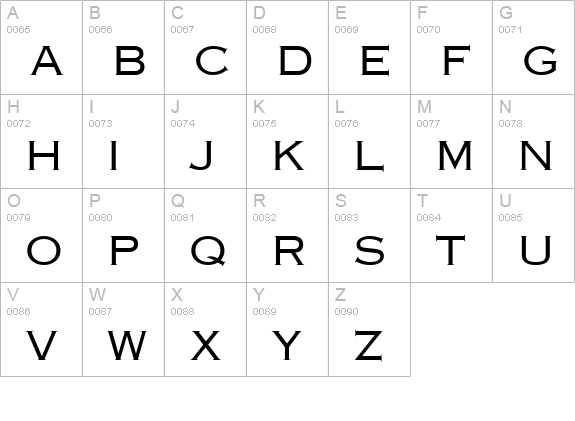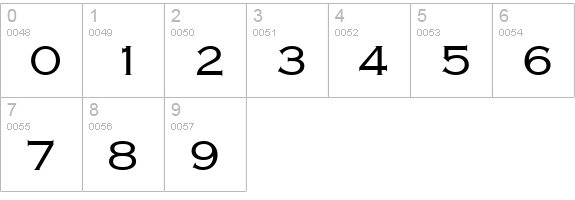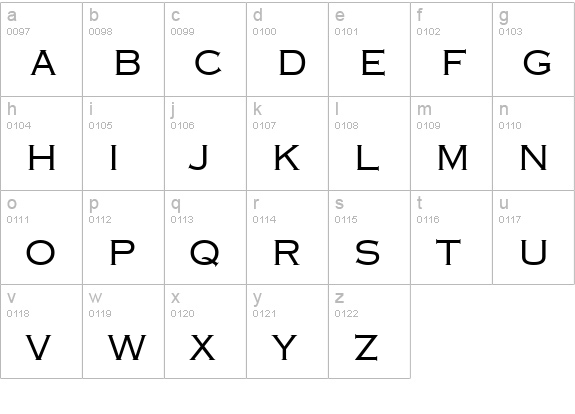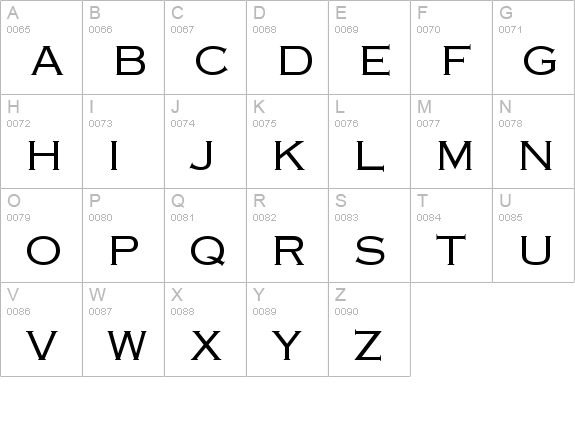
Copperplate SSi Font Details
Copperplate SSi font is a timeless and classic typeface that exudes elegance and sophistication. With its clean lines and sharp serifs, this font is perfect for conveying a sense of professionalism and refinement in any design project. Copperplate SSi is a versatile font that can be used for a wide range of applications, from formal invitations to corporate branding. What's even better is that Copperplate SSi font is available for free download at FontsMarket.com. You can easily access this high-quality font and elevate your designs without any cost. Don't miss out on the opportunity to add Copperplate SSi to your font collection and enhance your projects with its timeless charm.